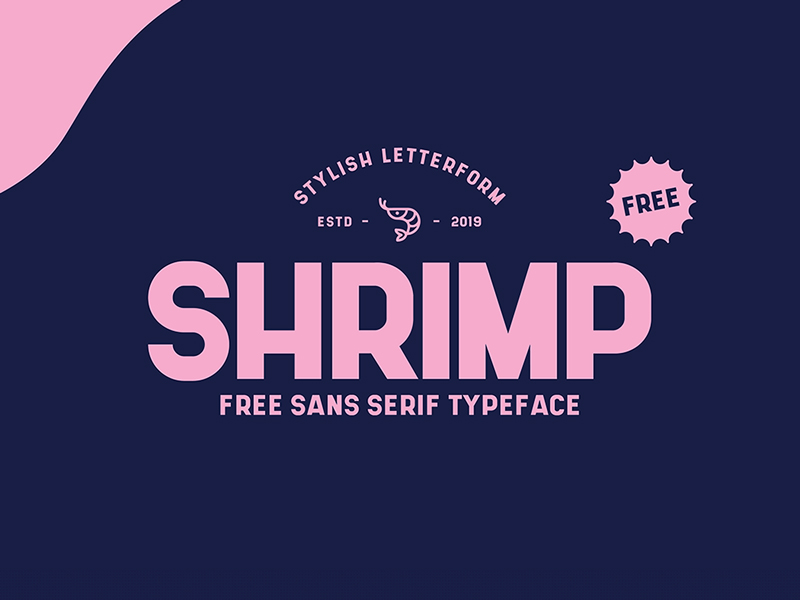
Creativefabrica Sans Serif Font For Website Creativefabrica. While serif fonts are known to be more traditional, sans serif fonts bring that much another condensed sans serif font, qontra by tomaz hrastar would work amazingly for any typographic application. The most common examples are arial and helvetica. Google fonts now supports variable fonts. Please enable it to use the advanced features of this website. Archive of freely downloadable fonts. These san serif fonts are perfect for creating highly readable, highly visible headings across your whole website or on landing pages. Hello, you seem to have javascript turned off. Font name newest most downloads. When it comes to web fonts, designers have many options to choose from. Simplifica is a sans serif font which is easily distinguished thanks to its uniform design, with thin stems and short arms. Browse by alphabetical listing, by style, by author or by popularity. The best selection of sans serif fonts for windows and macintosh. Google fonts library has over 600 font families, but many of those are unversatile and unsuitable for body copy. Sans serif fonts, as you might already know, are the fonts with no projecting lines at the ends. Demo donationware free free for personal use public domain, gpl, ofl shareware.
Free Quality Fonts Available For Download Fontsrepo. Google fonts now supports variable fonts. Hello, you seem to have javascript turned off. Font name newest most downloads. When it comes to web fonts, designers have many options to choose from. Sans serif fonts, as you might already know, are the fonts with no projecting lines at the ends. While serif fonts are known to be more traditional, sans serif fonts bring that much another condensed sans serif font, qontra by tomaz hrastar would work amazingly for any typographic application. Archive of freely downloadable fonts. The most common examples are arial and helvetica. Google fonts library has over 600 font families, but many of those are unversatile and unsuitable for body copy. Browse by alphabetical listing, by style, by author or by popularity. These san serif fonts are perfect for creating highly readable, highly visible headings across your whole website or on landing pages. Simplifica is a sans serif font which is easily distinguished thanks to its uniform design, with thin stems and short arms. The best selection of sans serif fonts for windows and macintosh. Please enable it to use the advanced features of this website. Demo donationware free free for personal use public domain, gpl, ofl shareware.
A wealth of free sans serif fonts to find typography for websites, presentations, interfaces, print projects, and documents. Browse by alphabetical listing, by style, by author or by popularity. In today's video we take a look at 36 sans serif fonts that are perfect for website headings. Font name newest most downloads. Serif display and signature script. While serif fonts are known to be more traditional, sans serif fonts bring that much another condensed sans serif font, qontra by tomaz hrastar would work amazingly for any typographic application. Please enable it to use the advanced features of this website.
Added by williamson (1 style). Z y m m afta sans oriol esparraguera 2 styles. Sans serif fonts are popular, and give your design a modern look. They were seen as more modern, and more informal than the usual fonts with serifs that we still see in print and screens. Google fonts now supports variable fonts. You can customize your experience with live font previews. Google fonts library has over 600 font families, but many of those are unversatile and unsuitable for body copy. A wealth of free sans serif fonts to find typography for websites, presentations, interfaces, print projects, and documents. In today's video we take a look at 36 sans serif fonts that are perfect for website headings. These cookies are necessary for the website to function and cannot be switched off in our systems. Midline font duo is a two different font styles : Recent fonts top fonts designers submit a font. Blog post + font list. Browse by alphabetical listing, by style, by author or by popularity. Arial is the most widely used font for both online and printed media. Archive of freely downloadable fonts. Sans serif fonts, as you might already know, are the fonts with no projecting lines at the ends. Well organized and easy to understand web building tutorials with lots of examples of how to use html, css, javascript, sql, php, python, bootstrap, java and xml. 143 free sans serif fonts. Font name newest most downloads. The most common examples are arial and helvetica. Download the best free serif fonts that are hand picked collections by our editorial experts and can be used on mac, pc, website. Added by williamson (1 style). The best selection of sans serif fonts for windows and macintosh. While serif fonts are known to be more traditional, sans serif fonts bring that much another condensed sans serif font, qontra by tomaz hrastar would work amazingly for any typographic application. Hello, you seem to have javascript turned off. Here are the 10 best. Even if that means we send you elsewhere to get them. Arial is also the default font in google docs. Please enable it to use the advanced features of this website. They are usually only set in response to actions made by you which amount to a request for services, such as setting your.
Free Sans Serif Fonts Creativebooster. The best selection of sans serif fonts for windows and macintosh. Sans serif fonts, as you might already know, are the fonts with no projecting lines at the ends. Browse by alphabetical listing, by style, by author or by popularity. Demo donationware free free for personal use public domain, gpl, ofl shareware. These san serif fonts are perfect for creating highly readable, highly visible headings across your whole website or on landing pages. Font name newest most downloads. The most common examples are arial and helvetica. Please enable it to use the advanced features of this website. Archive of freely downloadable fonts. Simplifica is a sans serif font which is easily distinguished thanks to its uniform design, with thin stems and short arms. Google fonts now supports variable fonts. When it comes to web fonts, designers have many options to choose from. While serif fonts are known to be more traditional, sans serif fonts bring that much another condensed sans serif font, qontra by tomaz hrastar would work amazingly for any typographic application. Hello, you seem to have javascript turned off. Google fonts library has over 600 font families, but many of those are unversatile and unsuitable for body copy.
The Best Free Fonts For Ui And Web Designers Theme Ui. Font name newest most downloads. Simplifica is a sans serif font which is easily distinguished thanks to its uniform design, with thin stems and short arms. The best selection of sans serif fonts for windows and macintosh. Archive of freely downloadable fonts. Browse by alphabetical listing, by style, by author or by popularity. These san serif fonts are perfect for creating highly readable, highly visible headings across your whole website or on landing pages. Sans serif fonts, as you might already know, are the fonts with no projecting lines at the ends. The most common examples are arial and helvetica. When it comes to web fonts, designers have many options to choose from. Google fonts now supports variable fonts. Please enable it to use the advanced features of this website. Demo donationware free free for personal use public domain, gpl, ofl shareware. While serif fonts are known to be more traditional, sans serif fonts bring that much another condensed sans serif font, qontra by tomaz hrastar would work amazingly for any typographic application. Hello, you seem to have javascript turned off. Google fonts library has over 600 font families, but many of those are unversatile and unsuitable for body copy.
The 10 Best Sans Serif Fonts For Web Design Pixel Brew. When it comes to web fonts, designers have many options to choose from. The most common examples are arial and helvetica. Google fonts now supports variable fonts. These san serif fonts are perfect for creating highly readable, highly visible headings across your whole website or on landing pages. Hello, you seem to have javascript turned off. Demo donationware free free for personal use public domain, gpl, ofl shareware. Archive of freely downloadable fonts. Please enable it to use the advanced features of this website. The best selection of sans serif fonts for windows and macintosh. Simplifica is a sans serif font which is easily distinguished thanks to its uniform design, with thin stems and short arms. Browse by alphabetical listing, by style, by author or by popularity. While serif fonts are known to be more traditional, sans serif fonts bring that much another condensed sans serif font, qontra by tomaz hrastar would work amazingly for any typographic application. Font name newest most downloads. Sans serif fonts, as you might already know, are the fonts with no projecting lines at the ends. Google fonts library has over 600 font families, but many of those are unversatile and unsuitable for body copy.
60 Free Sans Serif Fonts To Give Your Designs A Modern Touch. Please enable it to use the advanced features of this website. Sans serif fonts, as you might already know, are the fonts with no projecting lines at the ends. While serif fonts are known to be more traditional, sans serif fonts bring that much another condensed sans serif font, qontra by tomaz hrastar would work amazingly for any typographic application. Archive of freely downloadable fonts. The most common examples are arial and helvetica. Google fonts library has over 600 font families, but many of those are unversatile and unsuitable for body copy. Google fonts now supports variable fonts. Demo donationware free free for personal use public domain, gpl, ofl shareware. The best selection of sans serif fonts for windows and macintosh. Font name newest most downloads. Hello, you seem to have javascript turned off. When it comes to web fonts, designers have many options to choose from. Browse by alphabetical listing, by style, by author or by popularity. These san serif fonts are perfect for creating highly readable, highly visible headings across your whole website or on landing pages. Simplifica is a sans serif font which is easily distinguished thanks to its uniform design, with thin stems and short arms.
Sans serif fonts, then, are the ones that don't have these ornamental lines in them.
The Best Free Fonts For Ui And Web Designers Theme Ui. When it comes to web fonts, designers have many options to choose from. Browse by alphabetical listing, by style, by author or by popularity. Sans serif fonts, as you might already know, are the fonts with no projecting lines at the ends. Archive of freely downloadable fonts. Google fonts library has over 600 font families, but many of those are unversatile and unsuitable for body copy. Google fonts now supports variable fonts. While serif fonts are known to be more traditional, sans serif fonts bring that much another condensed sans serif font, qontra by tomaz hrastar would work amazingly for any typographic application. The best selection of sans serif fonts for windows and macintosh. Font name newest most downloads. Simplifica is a sans serif font which is easily distinguished thanks to its uniform design, with thin stems and short arms. Hello, you seem to have javascript turned off. The most common examples are arial and helvetica. Demo donationware free free for personal use public domain, gpl, ofl shareware. Please enable it to use the advanced features of this website. These san serif fonts are perfect for creating highly readable, highly visible headings across your whole website or on landing pages.
The best selection of sans serif fonts for windows and macintosh.
The Best Free Fonts For Ui And Web Designers Theme Ui. Please enable it to use the advanced features of this website. The most common examples are arial and helvetica. Font name newest most downloads. These san serif fonts are perfect for creating highly readable, highly visible headings across your whole website or on landing pages. Google fonts library has over 600 font families, but many of those are unversatile and unsuitable for body copy. Hello, you seem to have javascript turned off. Sans serif fonts, as you might already know, are the fonts with no projecting lines at the ends. Demo donationware free free for personal use public domain, gpl, ofl shareware. When it comes to web fonts, designers have many options to choose from. While serif fonts are known to be more traditional, sans serif fonts bring that much another condensed sans serif font, qontra by tomaz hrastar would work amazingly for any typographic application. Archive of freely downloadable fonts. Browse by alphabetical listing, by style, by author or by popularity. Google fonts now supports variable fonts. Simplifica is a sans serif font which is easily distinguished thanks to its uniform design, with thin stems and short arms. The best selection of sans serif fonts for windows and macintosh.
They are usually only set in response to actions made by you which amount to a request for services, such as setting your. They are usually only set in response to actions made by you which amount to a request for services, such as setting your. Simplifica is a sans serif font which is easily distinguished thanks to its uniform design, with thin stems and short arms. When it comes to web fonts, designers have many options to choose from. Recent fonts top fonts designers submit a font. You can customize your experience with live font previews. Hello, you seem to have javascript turned off. Here are the 10 best. Arial is the most widely used font for both online and printed media. These cookies are necessary for the website to function and cannot be switched off in our systems.